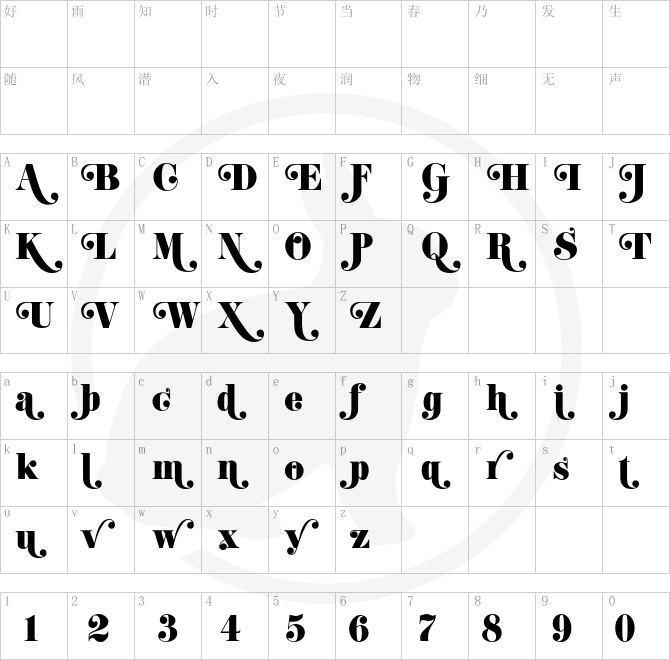
- Font Name:K22 Didoni Swash
K22-Didoni-Swash.otf is a very beautiful artistic font, K22-Didoni-Swash.otf is widely used in the design and printing of various books and pictures,K22-Didoni-Swash.otf has a strong visual impact,K22-Didoni-Swash.otf is a commonly used font in newspapers, magazines and books, and is used in posters, e-commerce Poster design, store design, logo design, font design and other fields.K22-Didoni-Swash.